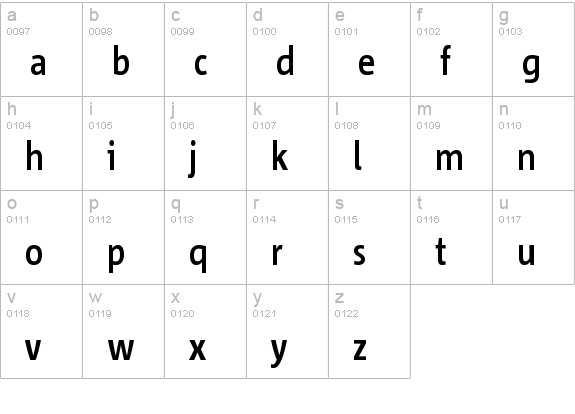
Corpid Cd LF Bold Font Details
Corpid Cd LF Bold is a strong, high-contrast variant in the Corpid typeface family \xE2\x80\x94 well suited to headlines, attention-grabbing titles, and strong calls-to-action.
Corpid Cd LF Bold font is a striking and modern typeface that exudes confidence and professionalism. With its bold and clean lines, this font is perfect for making a statement in any design project. Whether you are creating a sleek logo, eye-catching posters, or stylish branding materials, Corpid Cd LF Bold font will command attention and leave a lasting impression. The best part? Corpid Cd LF Bold font is available for free download at FontsMarket.com. This means you can enhance your designs without any cost, making it a valuable resource for designers, creatives, and enthusiasts alike. Don't miss out on the opportunity to elevate your projects with this versatile and impactful font. Download Corpid Cd LF Bold today and unleash your creativity!